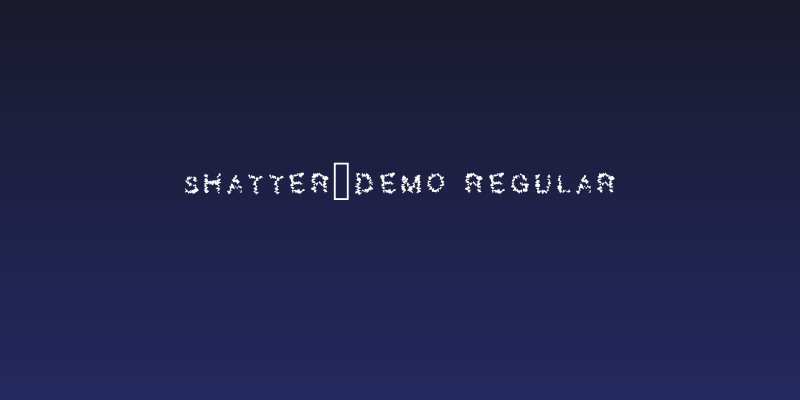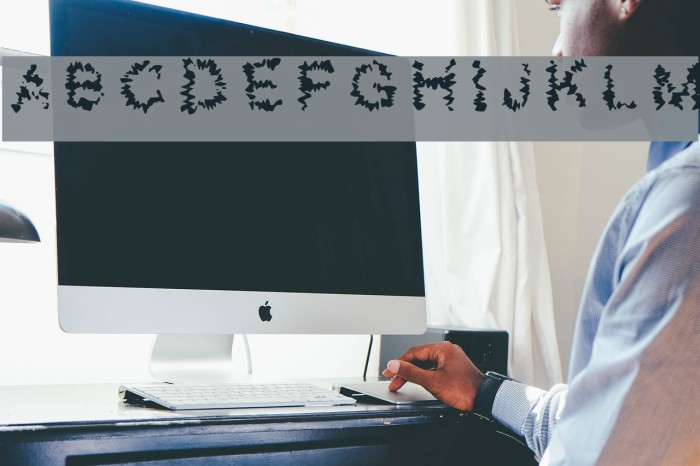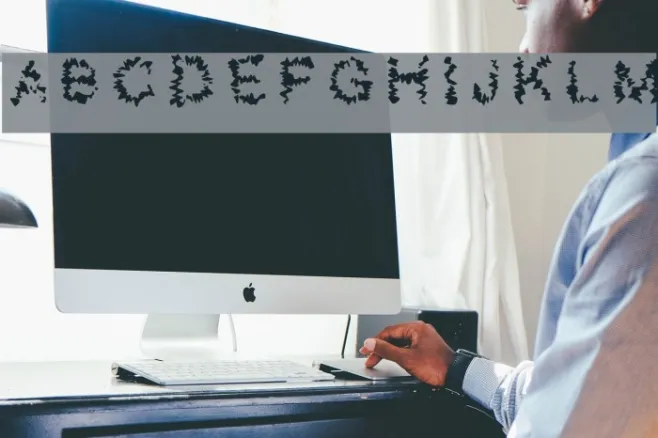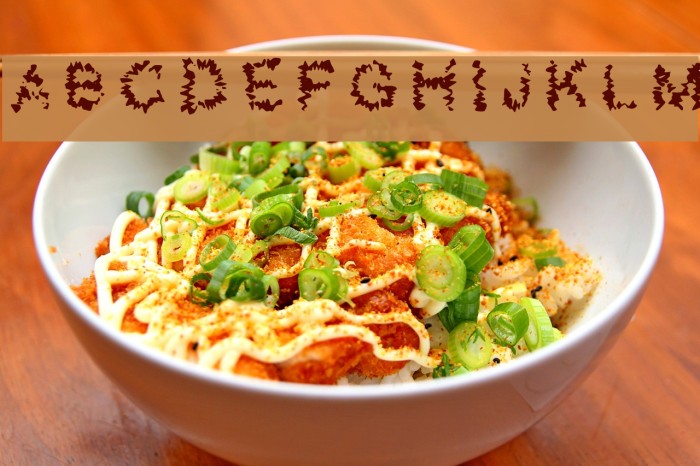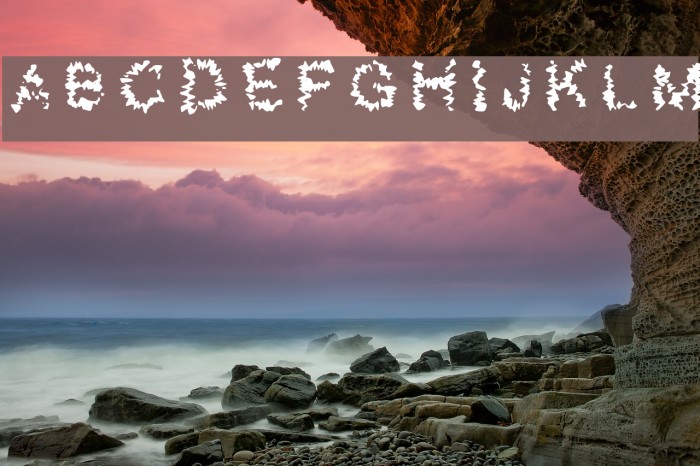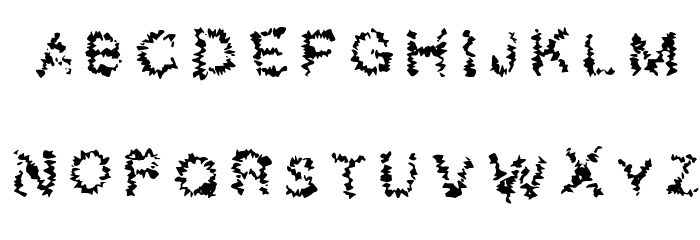
Shatter_demo Regular Font
Shatter_demo Regular Description
This font features a unique, shattered appearance that gives each character a fragmented and dynamic look. The jagged edges and irregular shapes create a sense of movement and energy, making it ideal for attention-grabbing designs. The uppercase and lowercase letters maintain a consistent style, with each character appearing as if it has been broken into pieces. The numbers and special characters follow the same shattered theme, ensuring a cohesive look across all text elements. This font is perfect for projects that require a bold and edgy aesthetic.
| Proposed Projects | Ideal for posters, album covers, video game titles, and any design needing a bold, edgy look. |